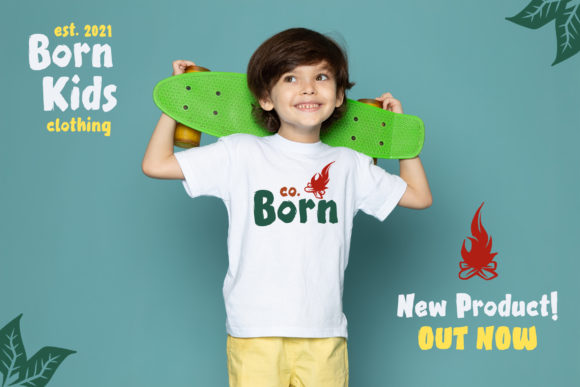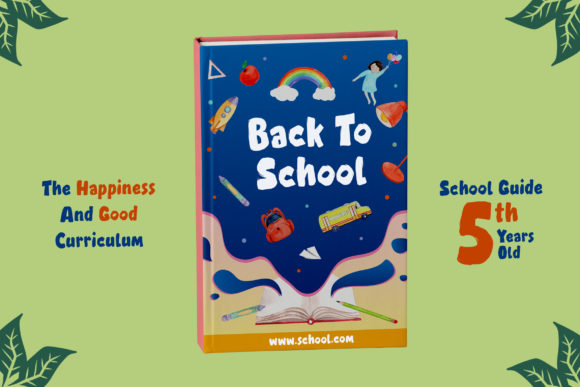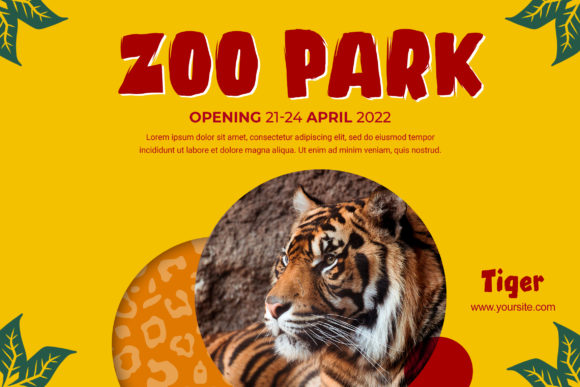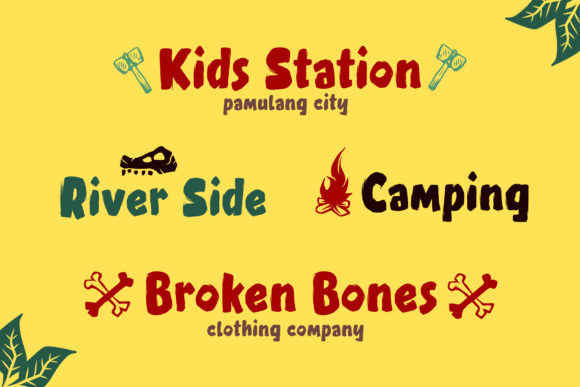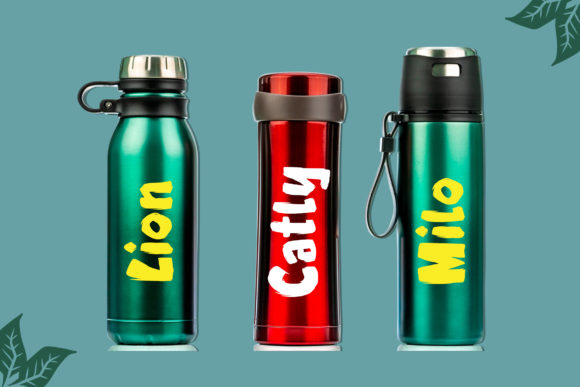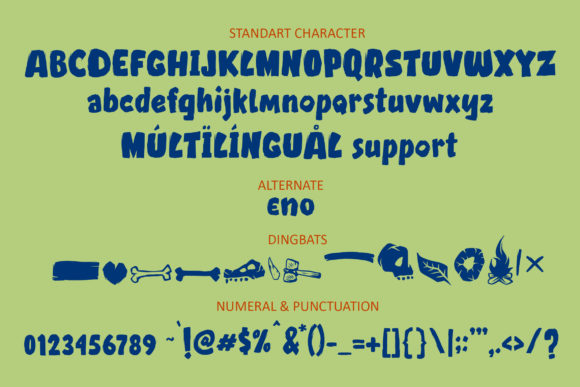
Dino Font: The Ultimate Choice for Fun and Playful Designs
Are you looking for a font that can add a touch of playfulness and authenticity to your designs? Look no further than the Dino Font! This cute and colorful display font is perfect for any children’s activity or school project, and is sure to make your designs come alive.
What is Dino Font?
Dino Font is a chunky lettered font that is designed to bring a sense of fun and excitement to your designs. With its bold and colorful letters, this font is sure to grab the attention of your audience and leave a lasting impression. Whether you’re working on a children’s book, a school project, or a fun craft, Dino Font is the perfect choice.
Key Features of Dino Font
So, what makes Dino Font so special? Here are just a few of its key features:
- Cute and Colorful: Dino Font is a vibrant and playful font that is sure to add a pop of color to your designs.
- Chunky Lettering: The bold and chunky lettering of Dino Font makes it perfect for headlines, titles, and other design elements.
- Playful and Authentic: This font embodies the spirit of playfulness and authenticity, making it perfect for designs that need to connect with kids and families.
- Easy to Read: Despite its bold and chunky design, Dino Font is easy to read and understand, making it perfect for designs that need to communicate a message.
Uses for Dino Font
So, what can you use Dino Font for? The possibilities are endless! Here are just a few ideas to get you started:
- Children’s Books: Add a touch of fun and excitement to your children’s book with Dino Font.
- School Projects: Whether you’re working on a project for school or helping your kids with their homework, Dino Font is a great choice.
- Crafts: From DIY signs to handmade cards, Dino Font is perfect for adding a personal touch to your crafts.
- Party Decorations: Use Dino Font to create fun and playful party decorations, such as banners, invitations, and more.
Tips for Using Dino Font
Here are a few tips for using Dino Font in your designs:
- Use it Sparingly: While Dino Font is fun and playful, it can be overwhelming if used too much. Use it sparingly to add emphasis and create visual interest.
- Pair it with Other Fonts: Dino Font pairs well with other fonts, such as serif or script fonts. Experiment with different combinations to find the perfect look for your design.
- Experiment with Colors: Dino Font comes in a range of colors, but you can also experiment with different colors to find the perfect match for your design.
In conclusion, Dino Font is a fun and playful display font that is perfect for adding a touch of excitement and authenticity to your designs. With its bold and chunky lettering, cute and colorful design, and ease of use, it’s the perfect choice for designers and crafters of all levels. So why wait? Download Dino Font today and start creating fun and playful designs that will leave a lasting impression!